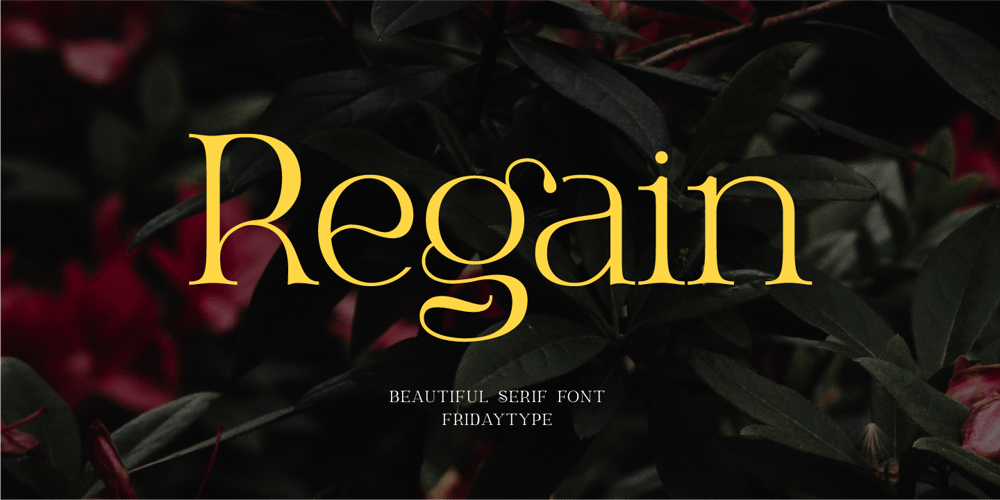
Regain
Regain font
Regain Font Family was designed by Farida Kurniawan and published by Fridaytype. Regain contains 1 styles and family package options. Regain – Beautiful Serif FontRegain that is a font mix of old and new. This typeface has been made carefully to make sure its premium quality and luxury feel. The combination with the width of each letter forms a modern feel and is suitable for various magazines, logos, branding, photography, invitations, wedding invitations, quotes, blog headers, posters, advertisements, postcards, books, websites, etc.Feature- Regain (TTF)- Uppercase & Lowercase- Numerals & Punctuation- Multilingual- LigatureDrop any message if you any question, Thank you!Fridaytype